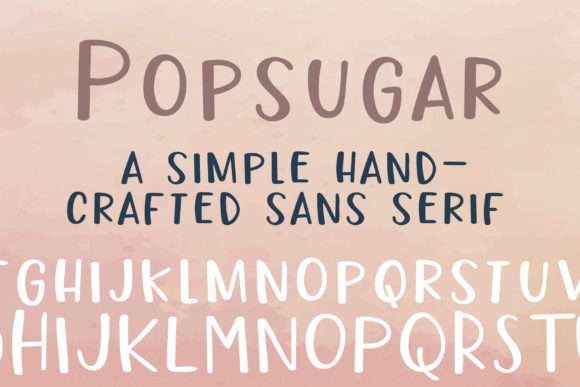
Behold the Delectable PN Popsugar Sans Serif: Blending Whimsy and Youthful Exuberance
Embark on a typographic adventure with the PN Popsugar Sans Serif font, a creation of Illustration Ink—a font foundry renowned for their exquisite designs. This handwritten sans serif typeface radiates a youthful charm, perfectly suited for creative endeavors that yearn for distinct typography.
Indulge in the Unparalleled Charm of PN Popsugar: A Visual Symphony for Creative Expression
PN Popsugar dances across your screen, a visual symphony of playful loops and graceful curves. Its wide spacing grants each letter ample room to breathe, creating a composition that is both airy and inviting. This whimsical dance of characters brings an irresistible spark to your projects.
Experience the Versatility of PN Popsugar: A Typographic Chameleon for Diverse Projects
Like a chameleon adapting to its surroundings, PN Popsugar seamlessly blends into diverse design landscapes. Infuse your print newsletters with an irresistible charm, captivating your readers with every word. Unleash its magic in digital realms, crafting eye-catching social media posts and website designs that leave a lasting impression. PN Popsugar effortlessly transcends boundaries, making it an indispensable tool for the modern creative.
Unleash Your Imagination with PN Popsugar: A Gateway to Creative Liberation
With PN Popsugar as your typographic muse, unleash your imagination and embark on a journey of uninhibited creativity. This font is more than just a collection of letters—it's a gateway to a world where ideas take flight and visual masterpieces are born. Transform your vision into reality, whether it's an enchanting poster, a captivating flyer, or a heartfelt invitation. PN Popsugar empowers you to weave tales with type, leaving your audience spellbound.